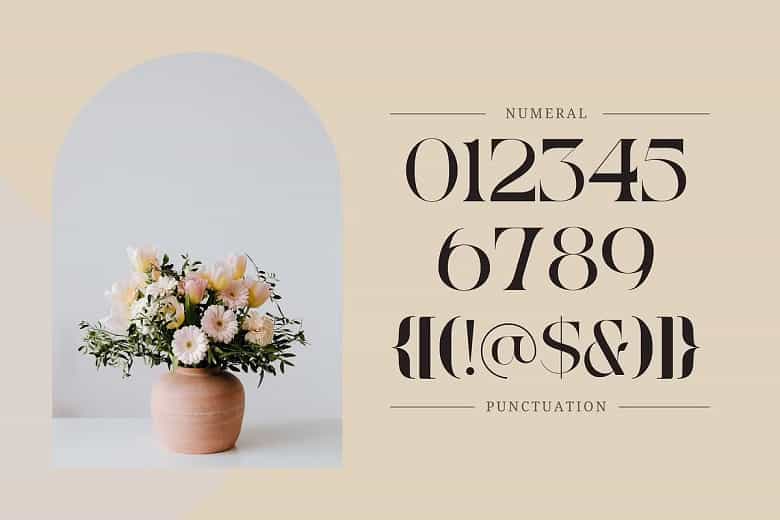
Discover Reaga Vintage Font, part of the Serif Logos Vintage collection—a versatile and unique font perfect for adding a personal touch to your projects. Download it for free and enjoy crafting designs with style, from invitations to social media posts. This font is available exclusively for personal use, giving you the freedom to create without limits. Unlock your creativity with Reaga Vintage Font today!
Reaga Vintage Font brings elegant typography solution for a wide range of designing tasks like logos & branding, social media posts, advertisements & product designs.